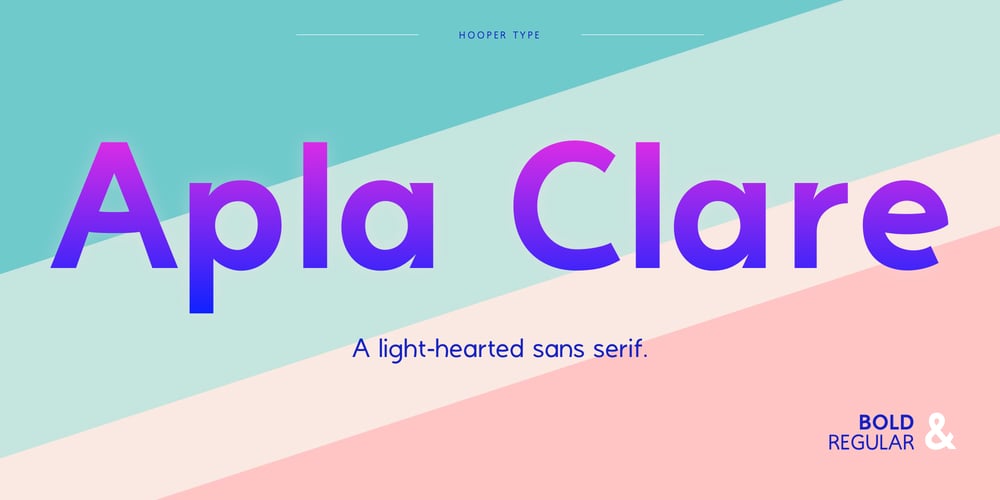
Apla Clare Font Family was designed by Christos Hooper and published by Hooper Type. Apla Clare contains 2 styles and family package options. Apla Clare comes from the love of my wife.. She’s ‘Simply’ Clare. It’s a straihght forward sans, but with a little bit of play, and a friendliness that ensures it moves away from sterile, serious sans. PLease enjoy!